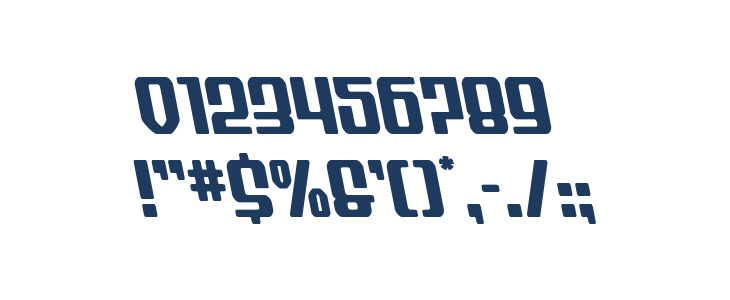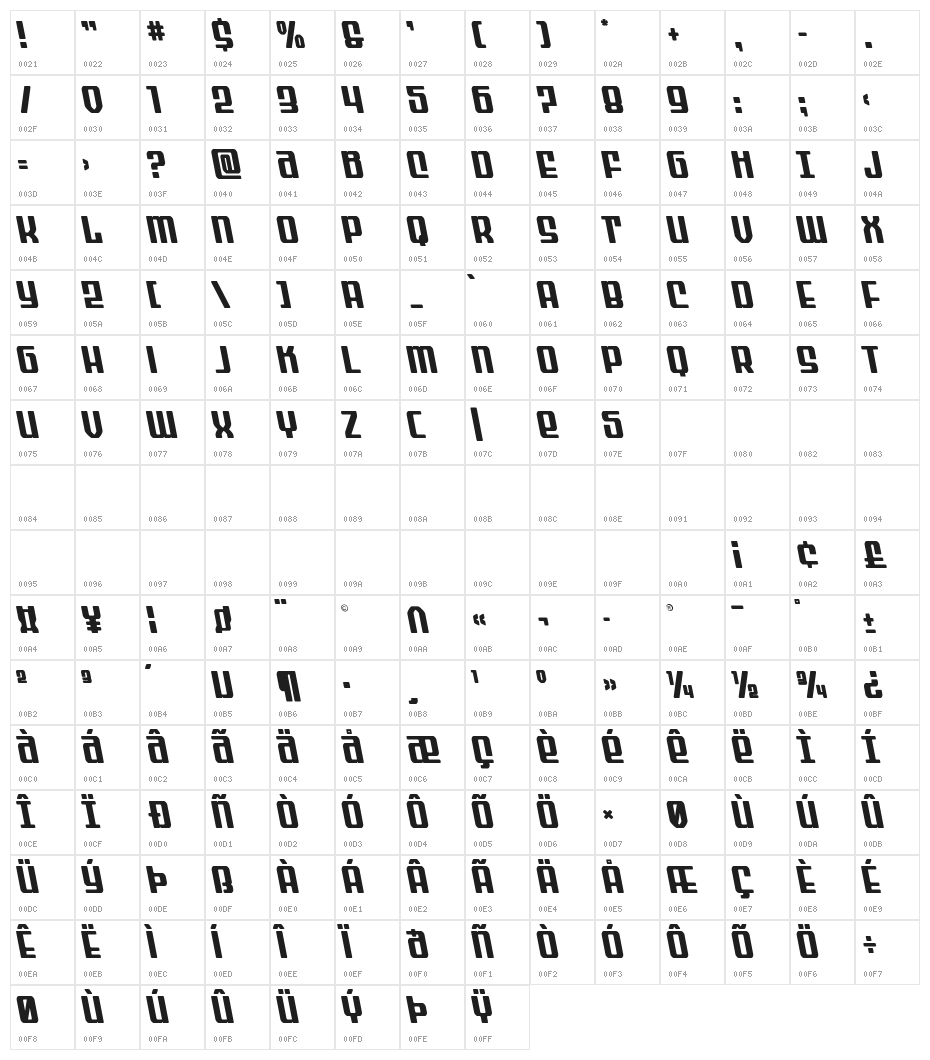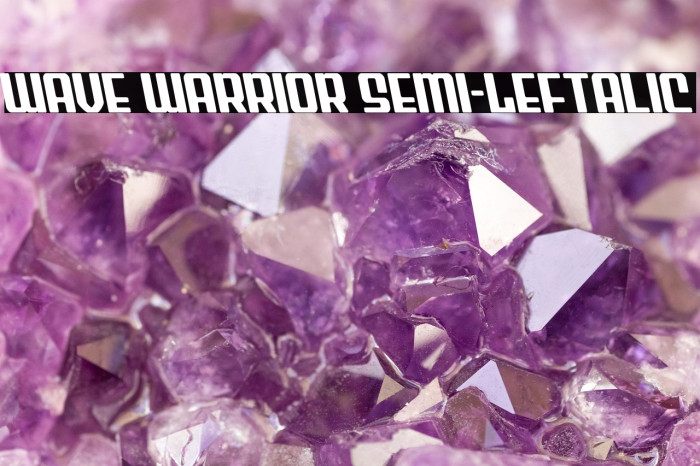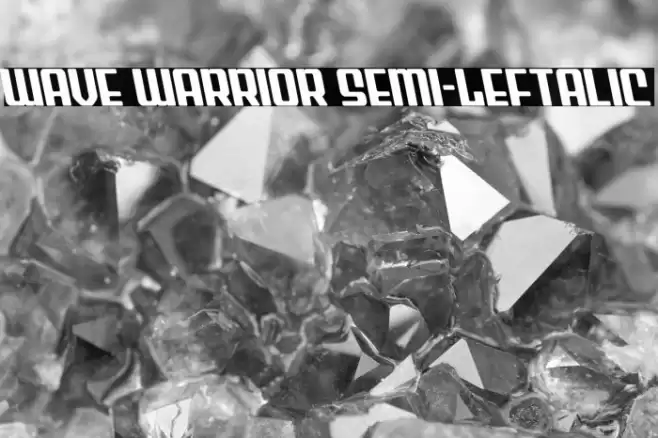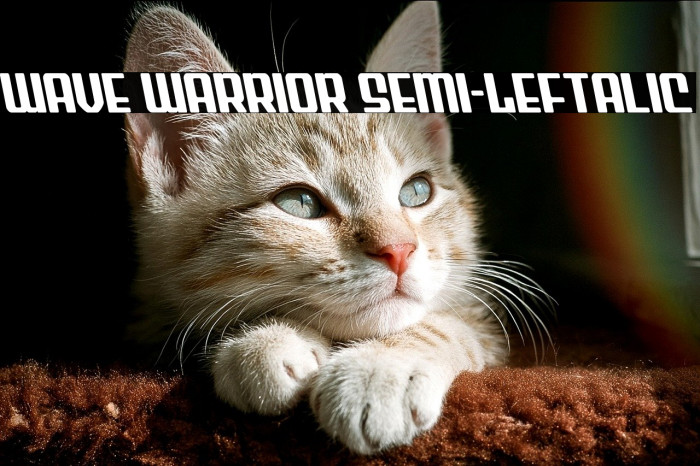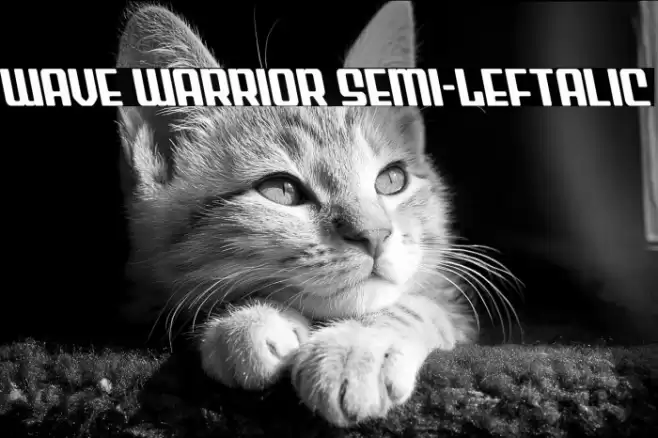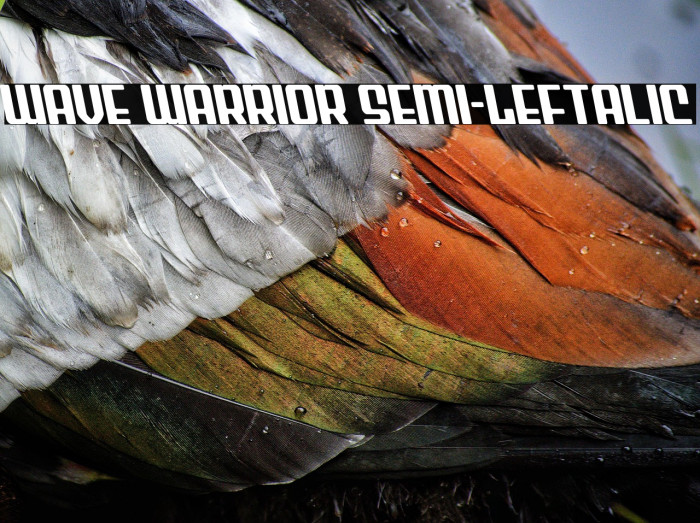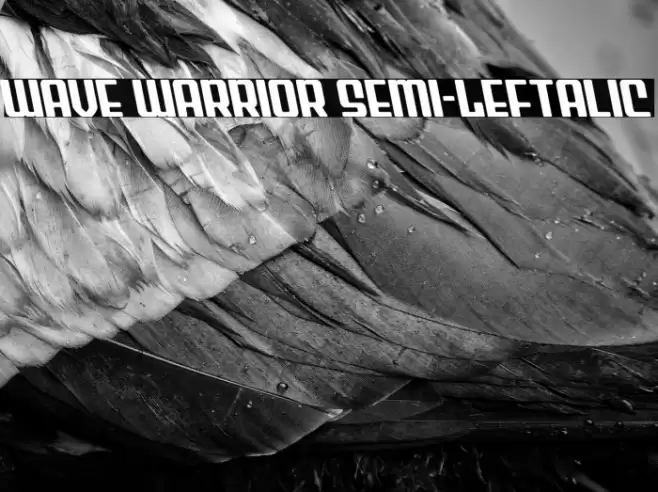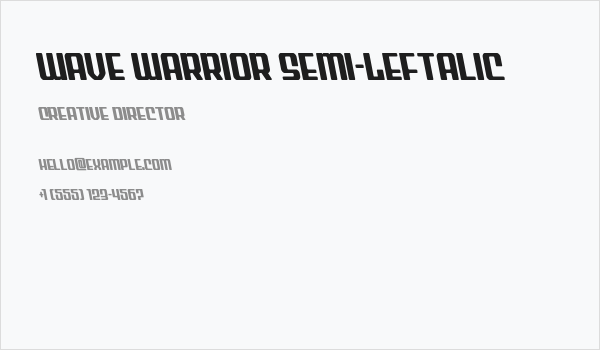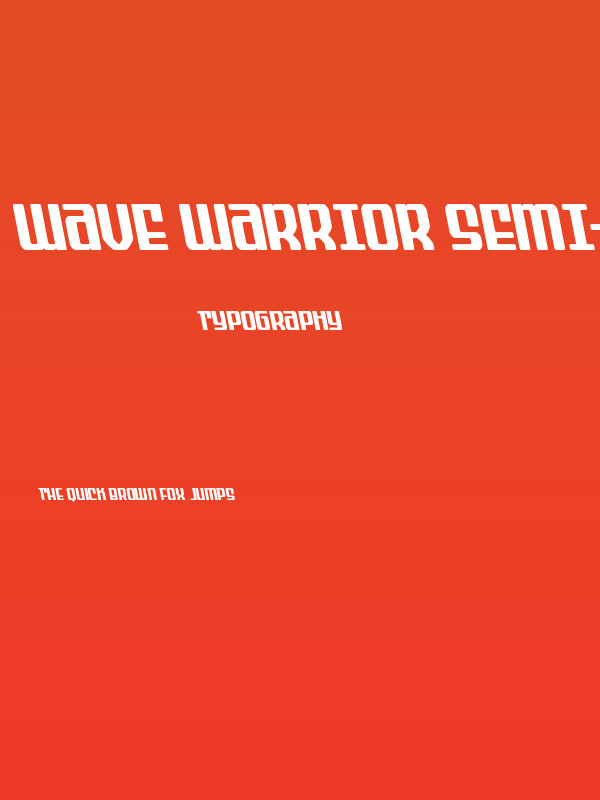
Wave Warrior Semi-Leftalic Font
Wave Warrior Semi-Leftalic Description
This font features a bold and dynamic design with a semi-italic slant, giving it a sense of movement and energy. The characters are blocky and robust, with a slightly condensed width that enhances its compact appearance. The strokes are thick and consistent, providing a strong visual impact. The font's geometric shapes and angular edges contribute to a modern and edgy style, making it suitable for attention-grabbing headlines and titles. Its unique style is further emphasized by the subtle slant, which adds a touch of dynamism without compromising readability. The character spacing is tight, ensuring that the text appears cohesive and unified.
| Proposed Projects | Ideal for sports branding, action-themed posters, video game titles, and dynamic logos. |